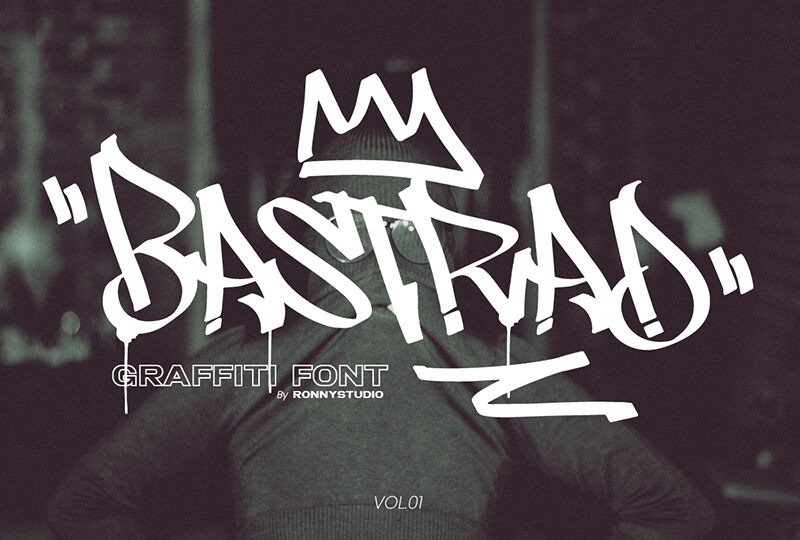
Bastrad-Regular
Bastrad, the graffiti-inspired font by Ronny Studio, is perfect for projects that require a bold and rebellious vibe. With its semi-light weight and condensed width, Bastrad makes a statement in headlines, logos, and posters. Its marker-like strokes give it a raw edge that's perfect for streetwear brands or music festivals. Use it to add attitude to your designs and capture the attention of your audience. Whether you're creating album covers or event flyers, Bastrad is the semi-light font that will make your work stand out from the crowd.